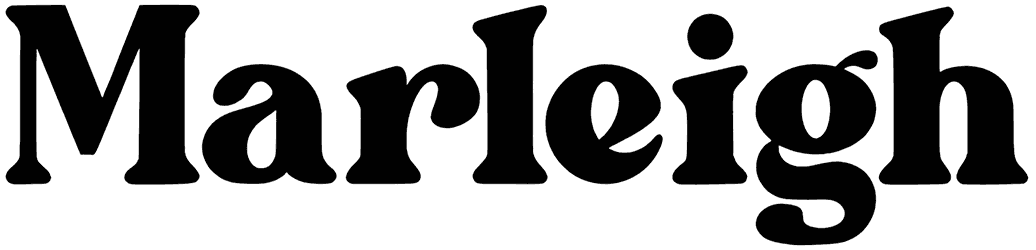
Marleigh Font
Introduce your design to your audience with a classic and familiar style and build a close relationship with them. This serif font with a retro mood has a smooth and timeless letter face that can reflect a chic vibe. Marleigh font doesn’t cover most punctuation marks, but it can be an apt illustration for various items, namely business cards, logos, apparel, and many others.